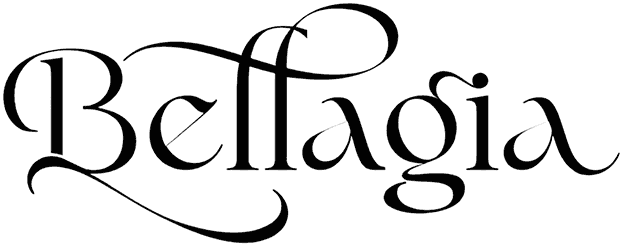
Rose Velt font is very luxurious, and clean, and has a serif font design that many designers are looking for. This luxury serif font has no flaws, and you can safely use it in the titles of magazines and flyers.
Of course, this font does not include small letters, but you can use it in luxury brands such as jewelry, watches, and perfumes. Use this elegant font, and we assure you will have great sales.